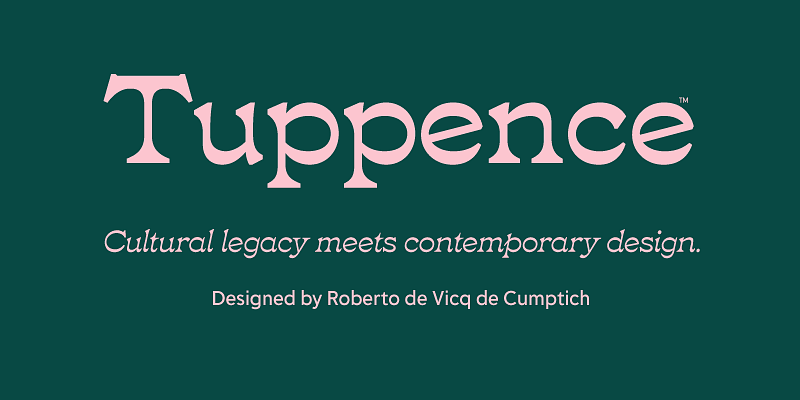
Tuppence Font Free Download is a charming serif typeface with a quirky, vintage-inspired personality. Featuring soft curves, delicate serifs, and slightly irregular details, this font is perfect for book covers, boutique branding, retro-themed packaging, and whimsical editorial layouts.
Designed to feel both classic and playful, Tuppence Font Free Download brings warmth and a human touch to your typography. Its unique letterforms stand out in headlines, logotypes, and decorative elements while maintaining readability and balance. The font captures the feel of old-fashioned letterpress printing with a modern twist—ideal for storytelling and nostalgic design.
Tuppence pairs beautifully with handwritten scripts or clean sans-serifs to create contrast in layered typographic compositions. Whether you're working on stationery, social media graphics, or artisanal product labels, this font adds personality and character.